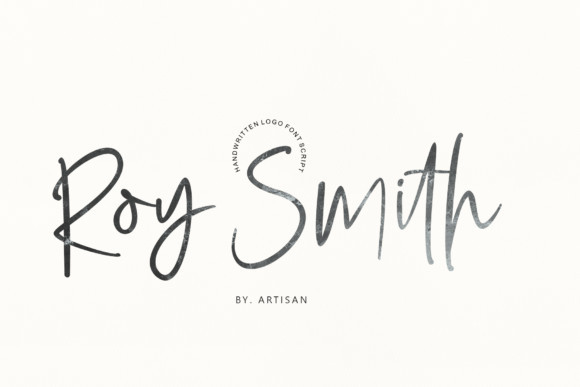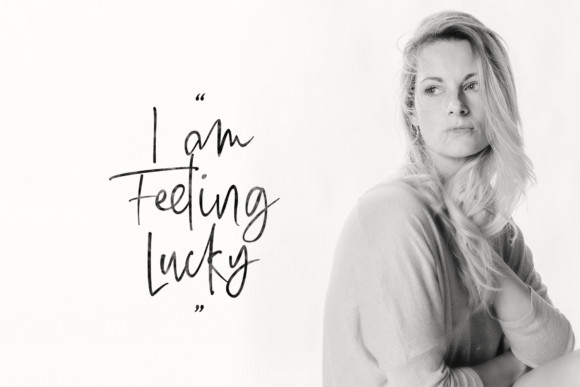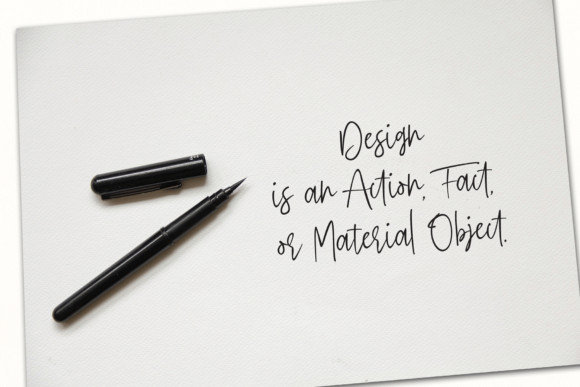
Roy Smith Font
Roy Smith FontRoy Smith is a lovely and relaxed handwritten font. It is the ideal choice for creating eye catching logos, branding and quotes. Every letter has a unique and neat touch, which will make your design come alive!